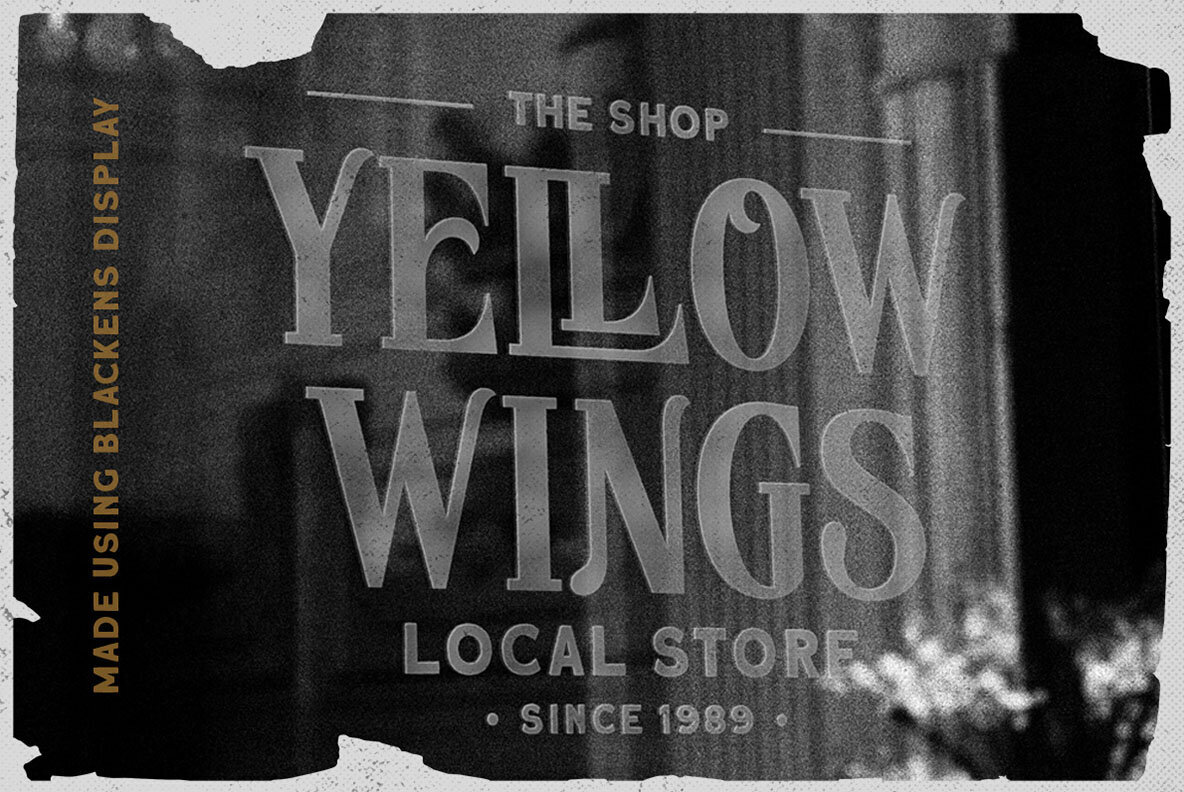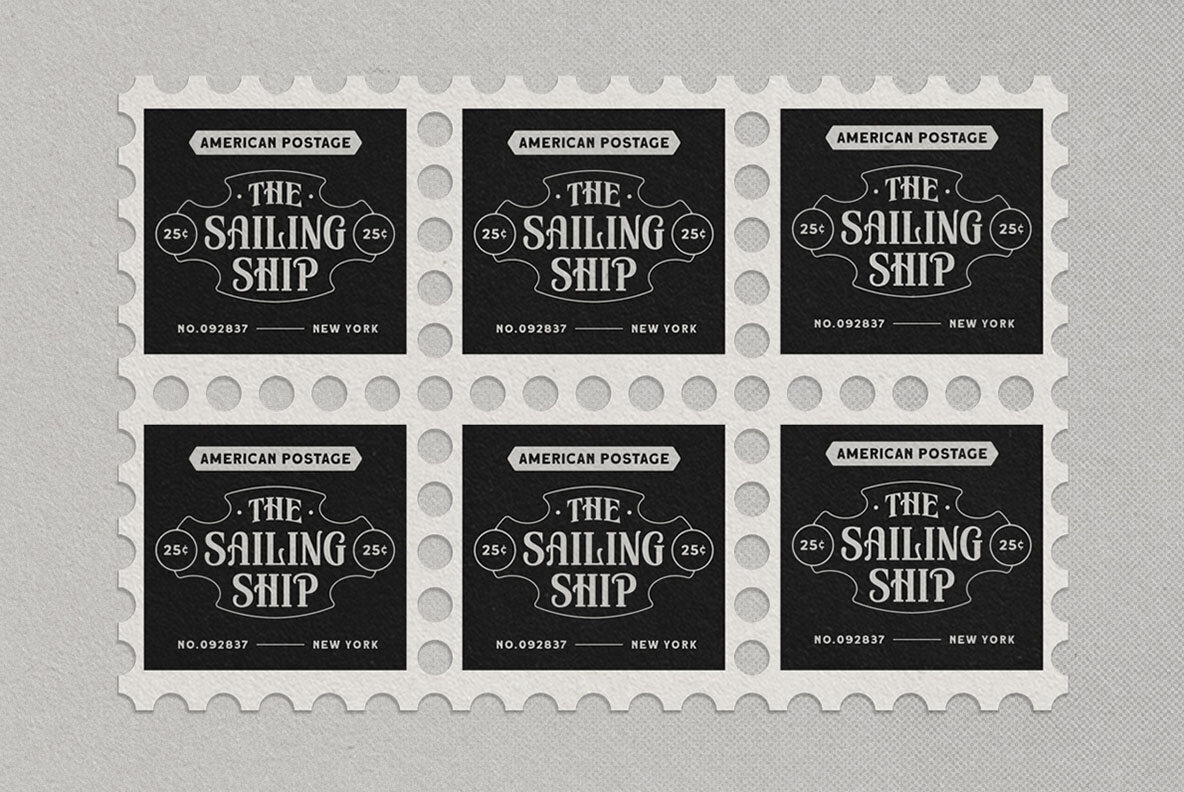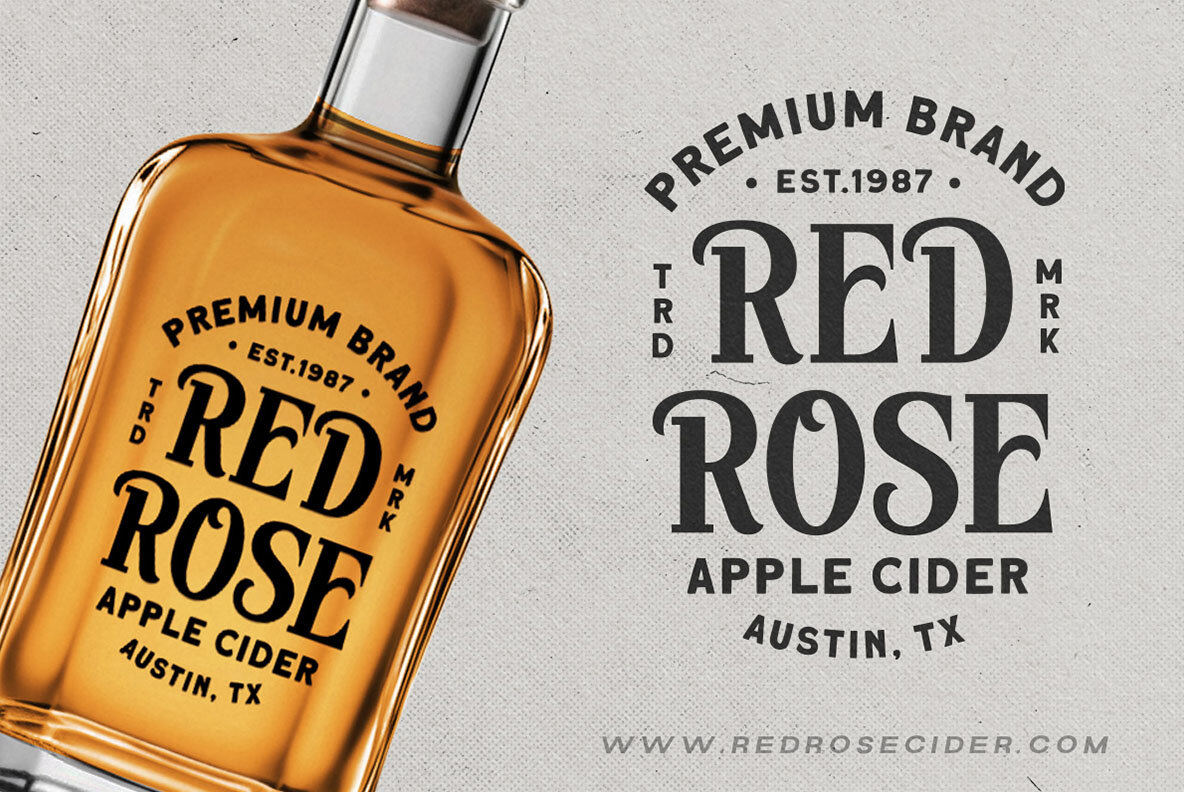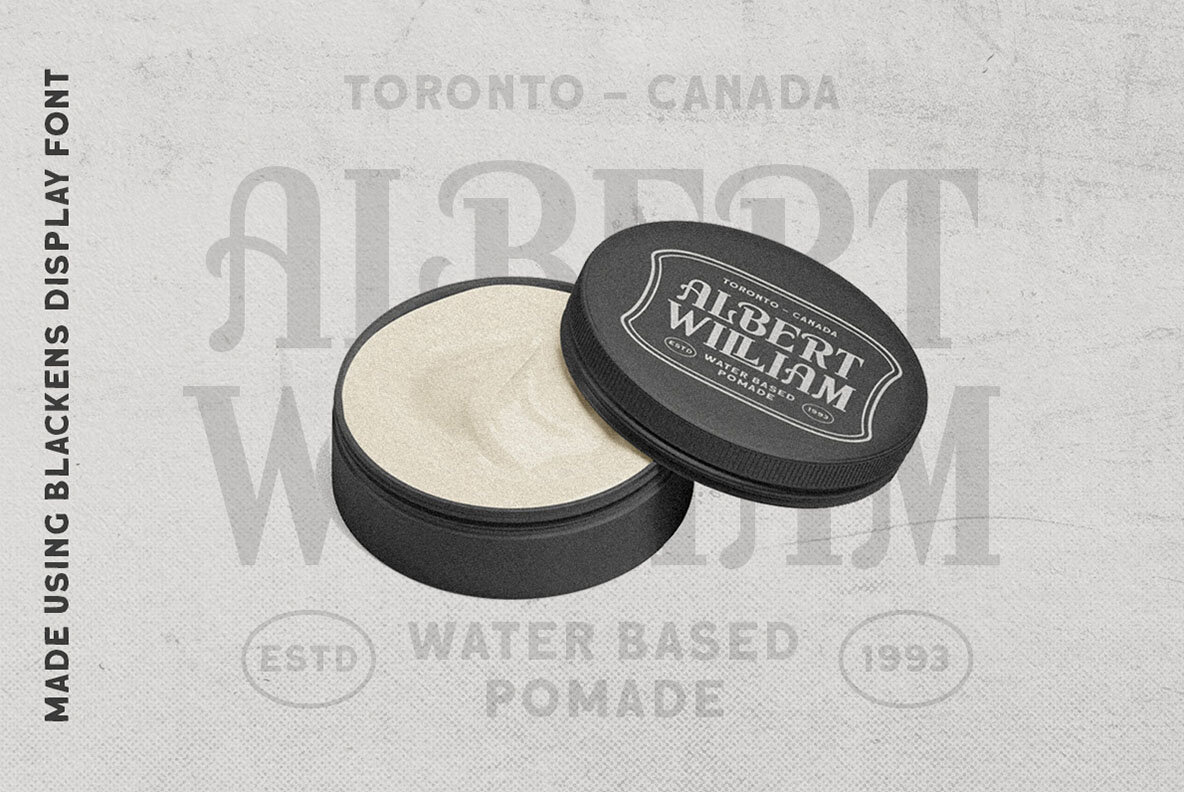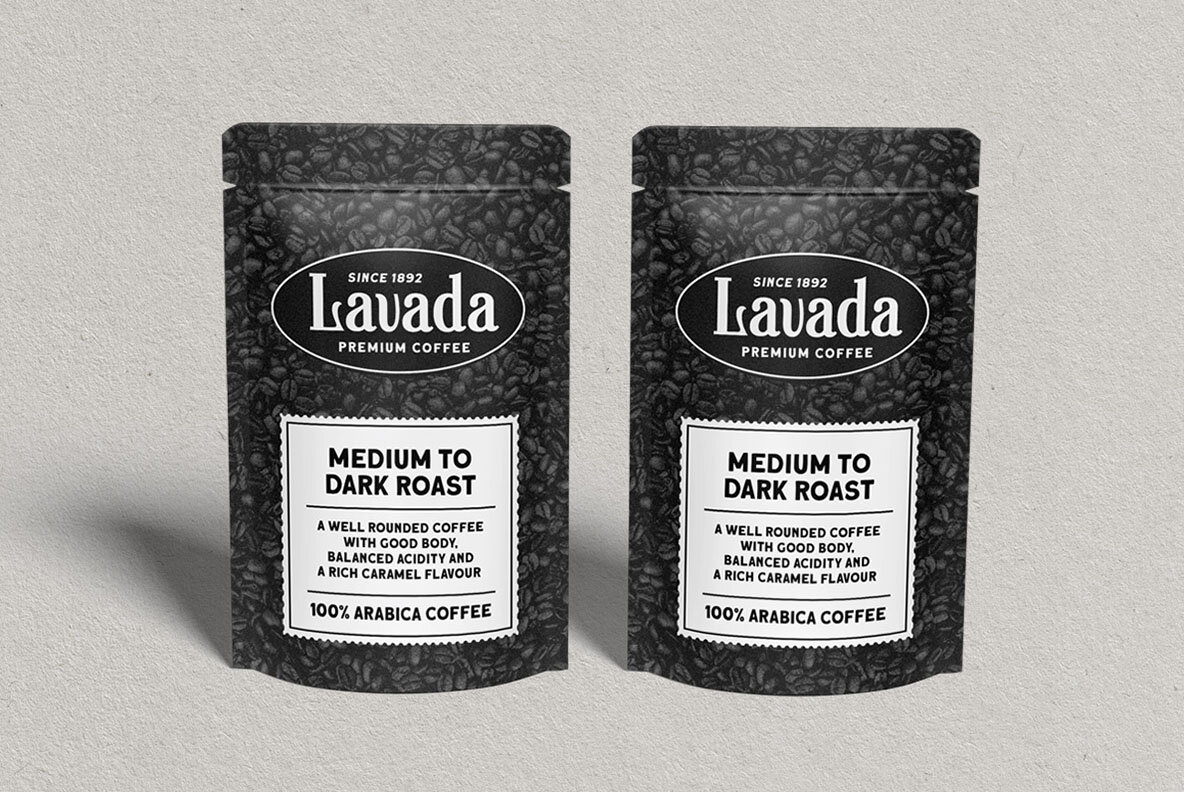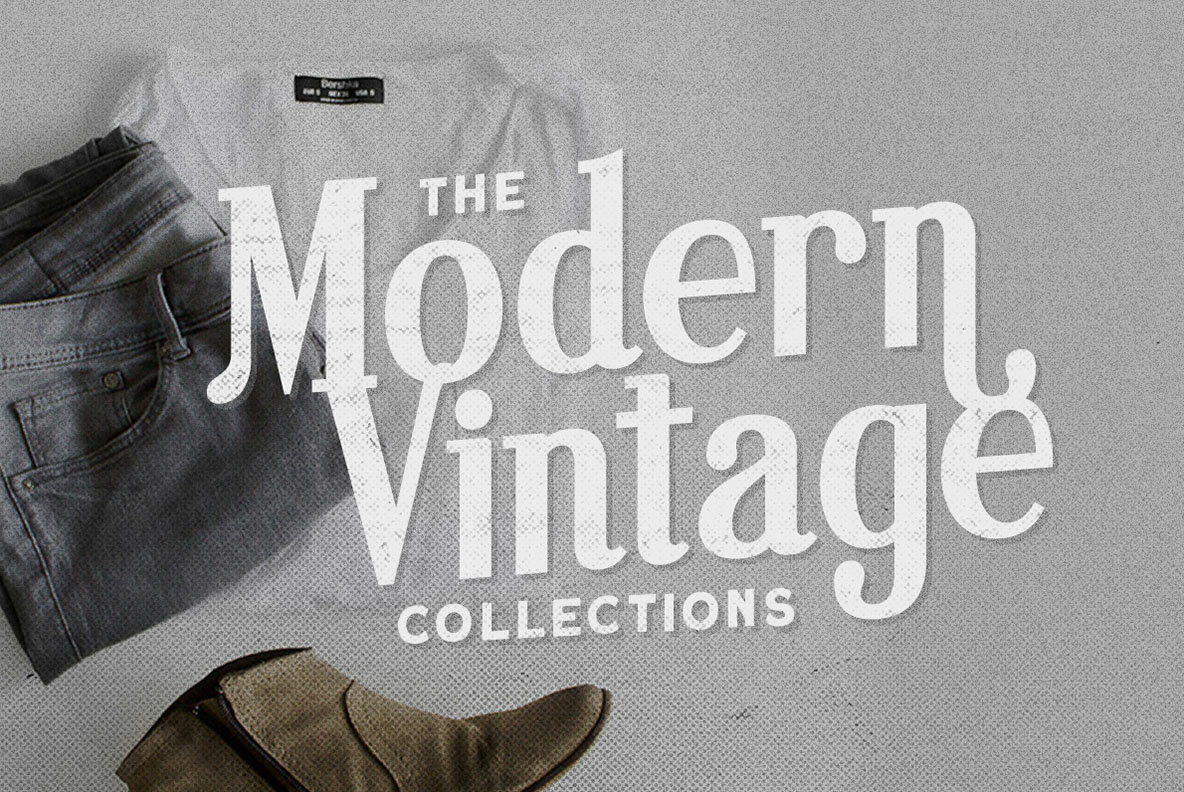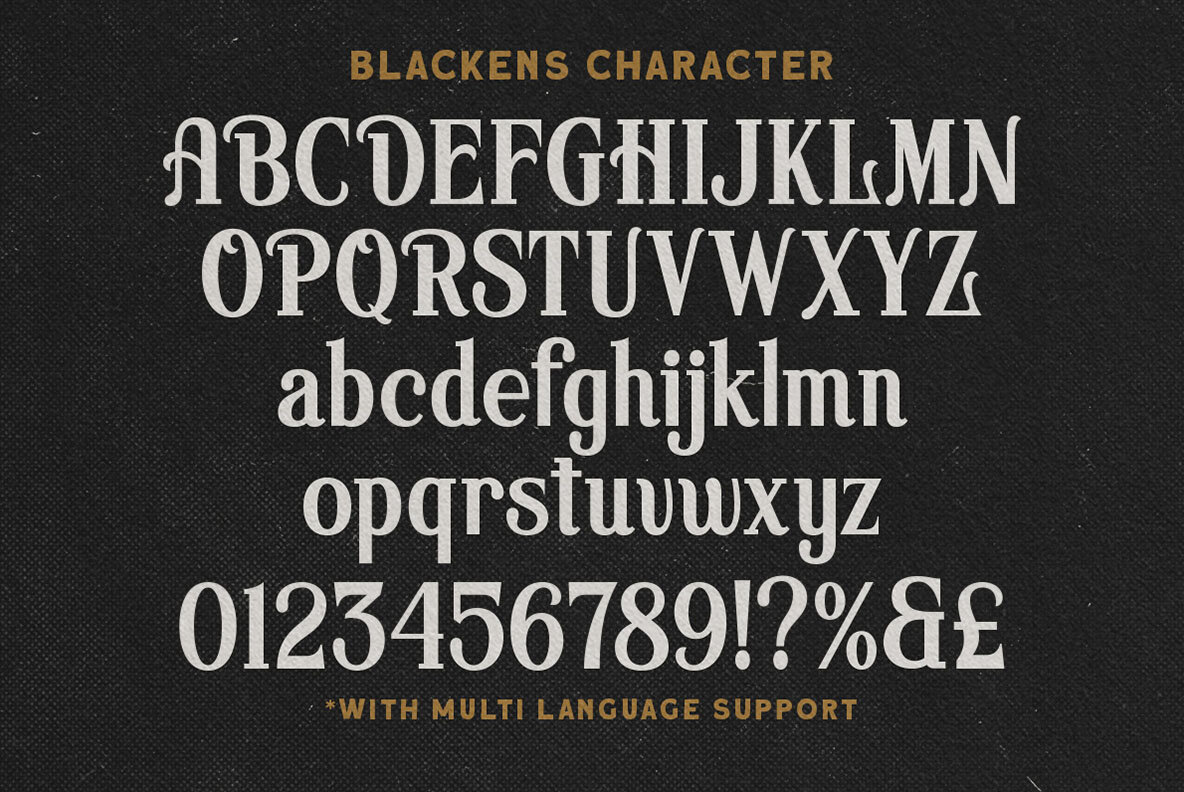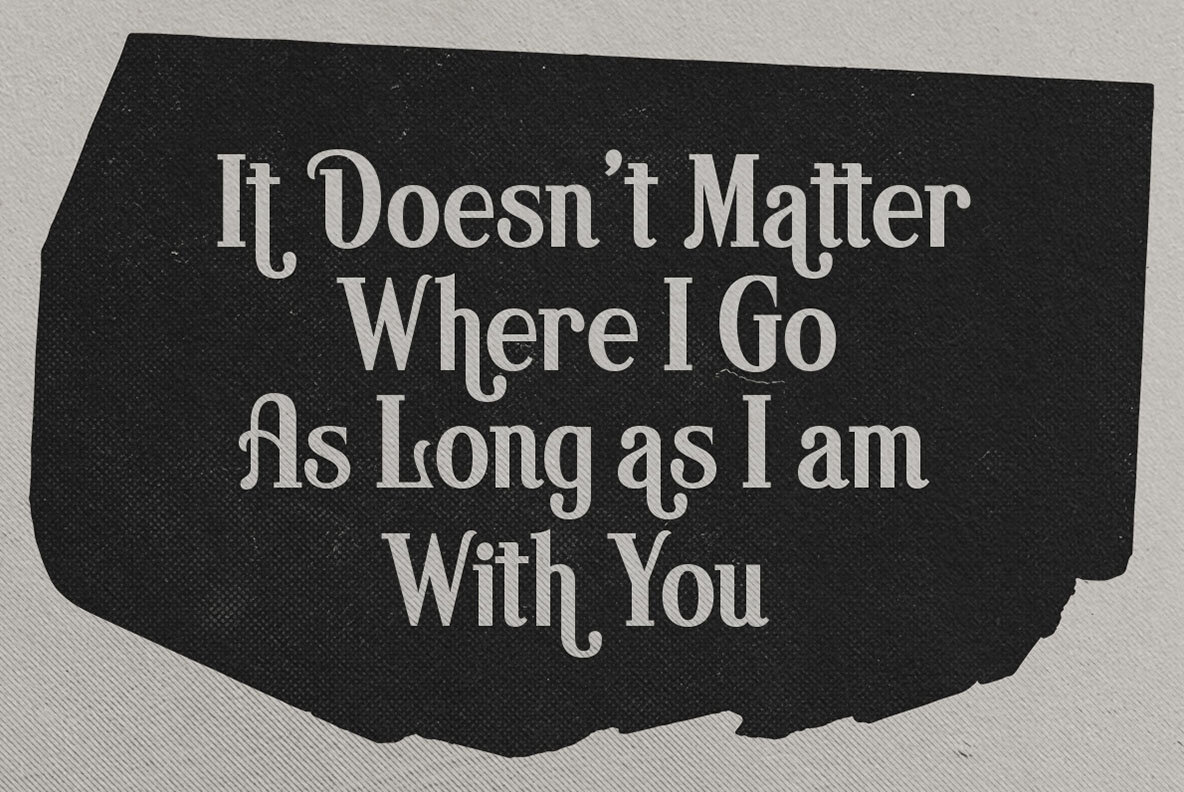
Blackens Font
Blackens is a distinct display serif font known for its stylistic uppercase characters, making it truly unique and eye-catching. Ideal for logos and formal applications, it enhances a variety of mediums such as invitations, labels, logo designs, magazines, books, greeting and wedding cards, packaging, fashion, makeup, stationery, novels, and various advertising purposes. For optimal use, it is recommended to use programs that support OpenType features and Glyphs panels, such as many Adobe applications and Corel Draw, to fully access and utilize all glyph variations.Blackens: Unique Display Serif with Stylistic Uppercase